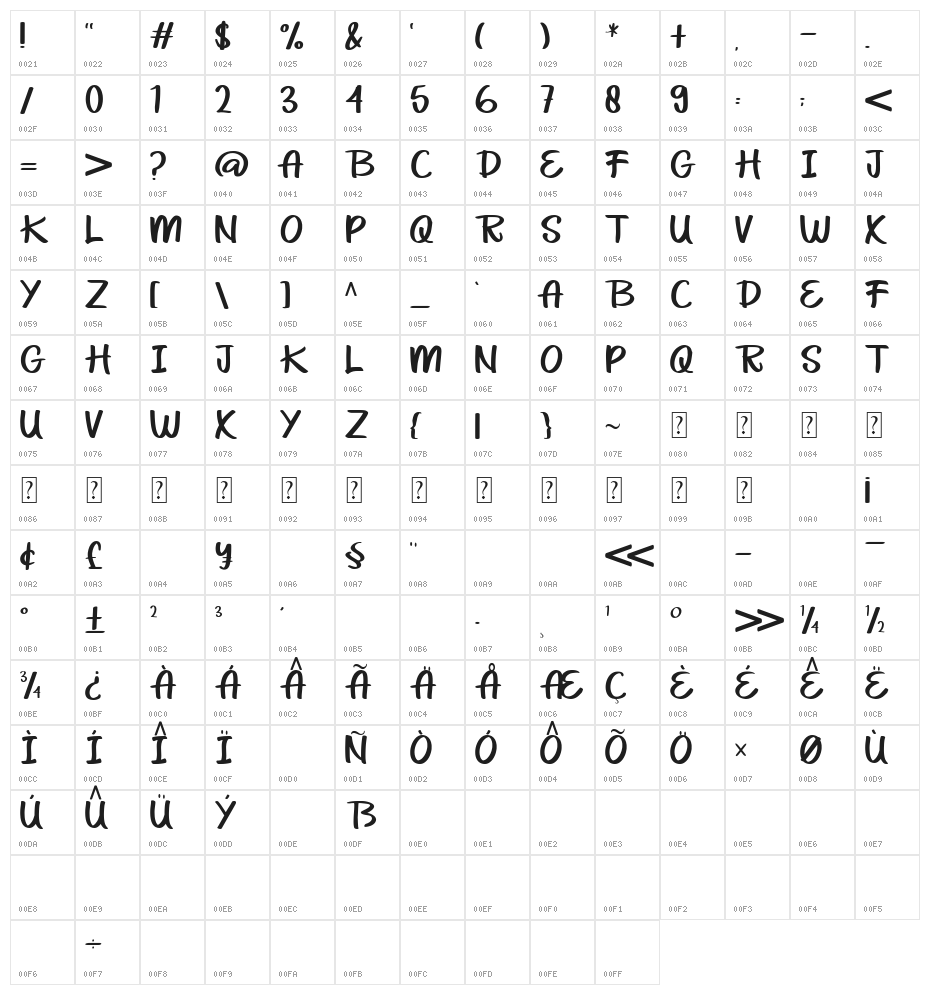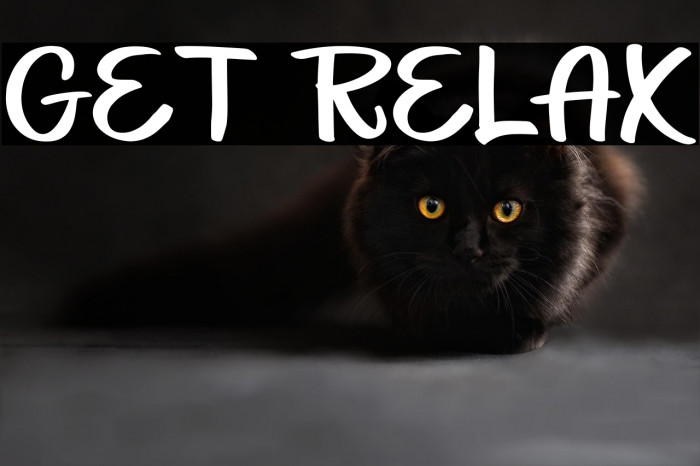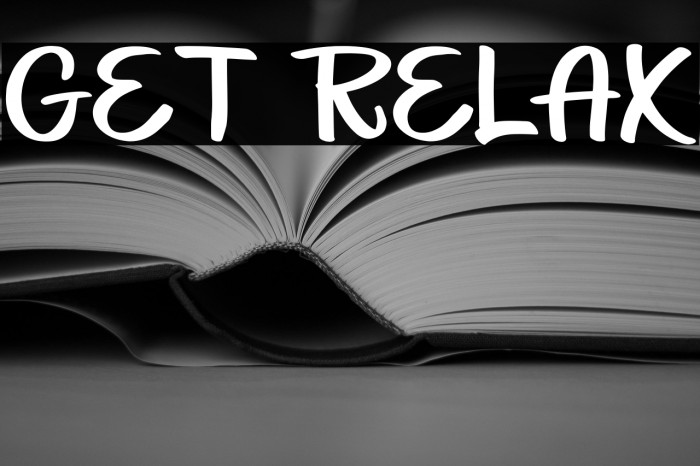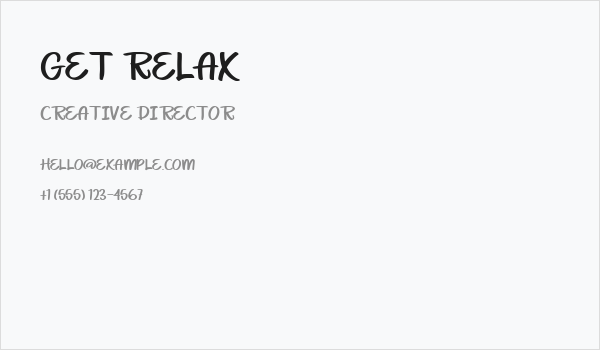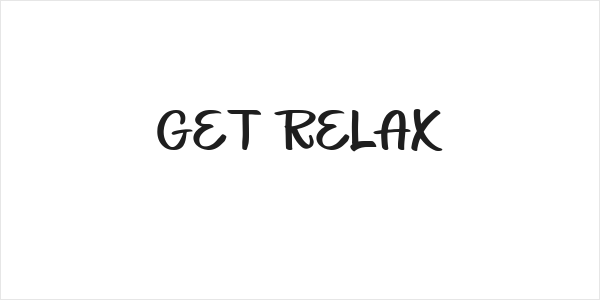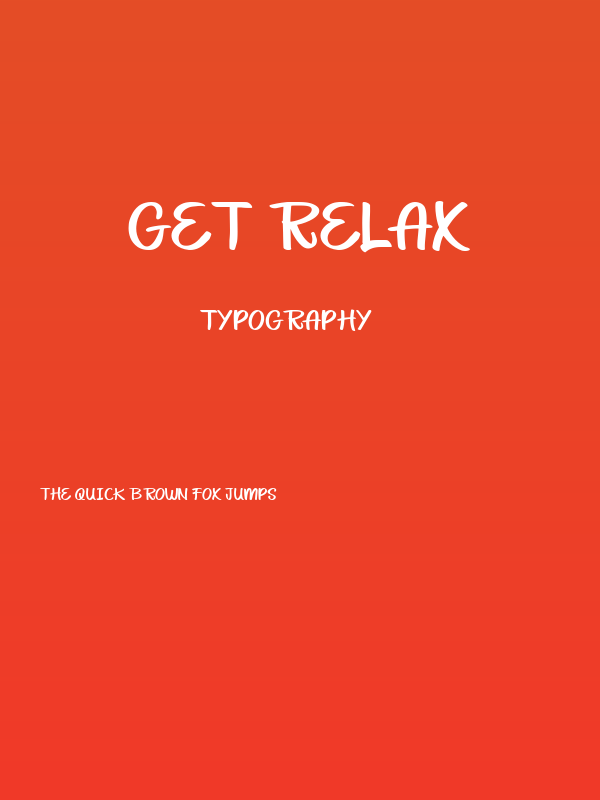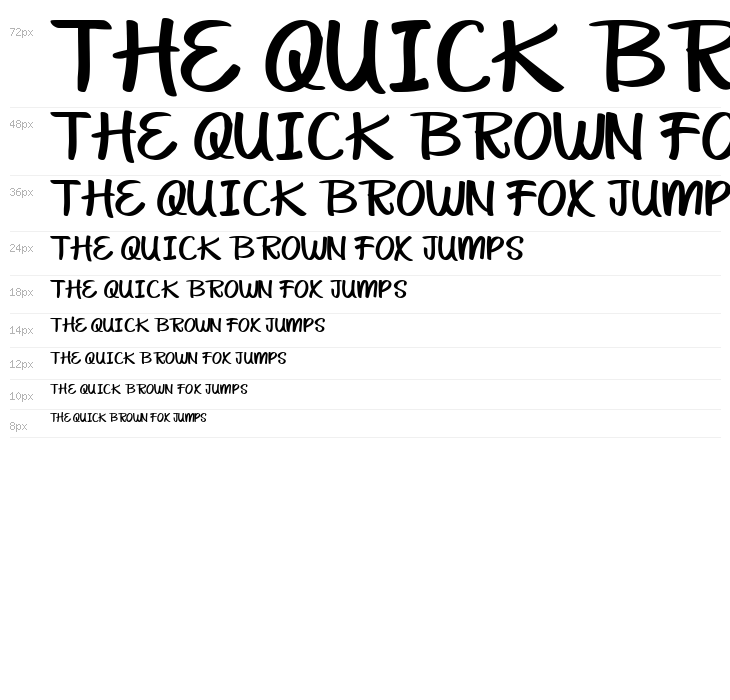
Get Relax Font
Get Relax Description
A playful, handwritten font with a casual and friendly appearance. The letters are bold and slightly slanted, giving a relaxed and informal feel.
| Use Case | Headlines, Informal text |
| Proposed Projects | Greeting cards, invitations, casual branding. |